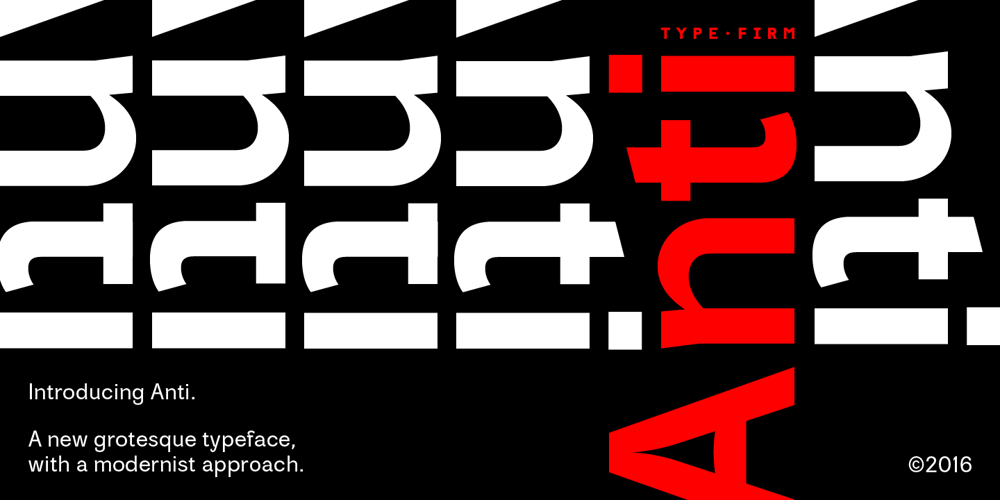
Anti Font Family was designed by Mattia Bonanomi and published by Type Firm. Anti contains 5 styles and family package options. If we look up the definition of the word “grotesque”, we find the following: “Odd or unnatural in shape, appearance, or character; fantastically ugly or absurd; bizarre.” Following this definition, the design for Anti aims to create an un-compromised version of a grotesque sans-serif – where decorative details live in balance with brutalist shapes. The result is an alphabet with a slightly modernist feeling and an eccentric touch, that work wonders at small sizes. The typeface comes with four weights – light to bold – and features a character set supporting Central and Eastern European as well as Western European languages.